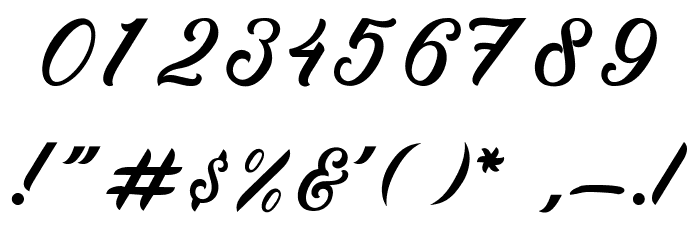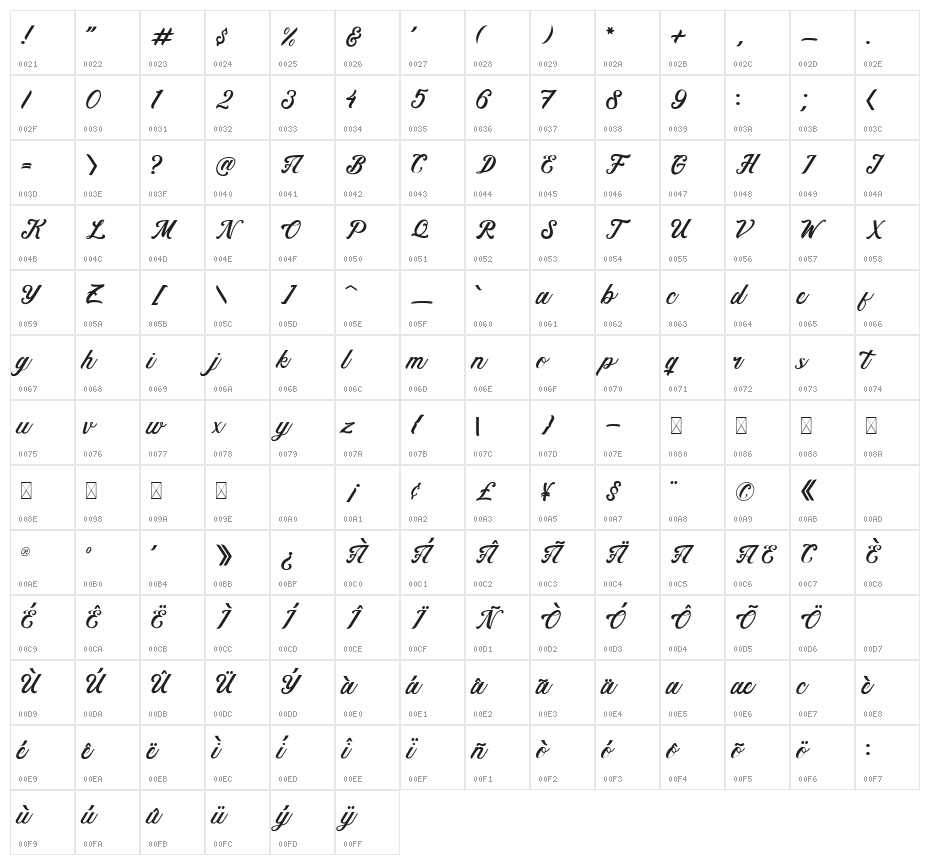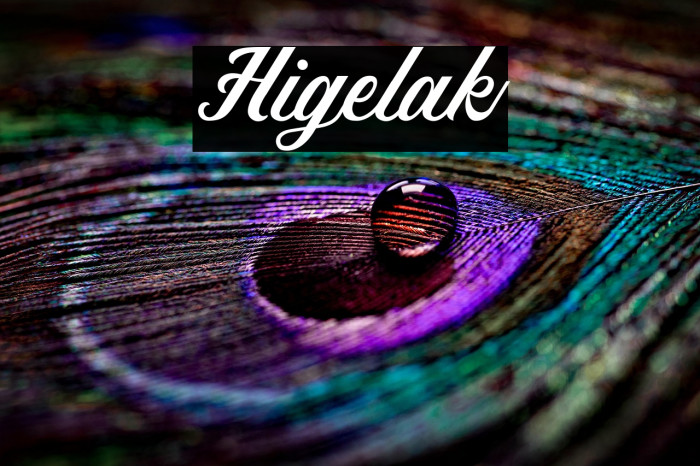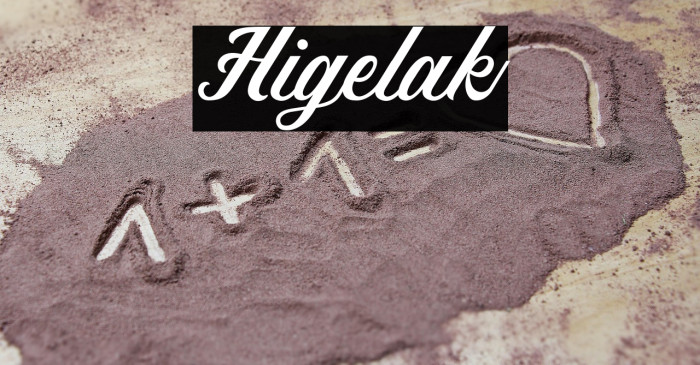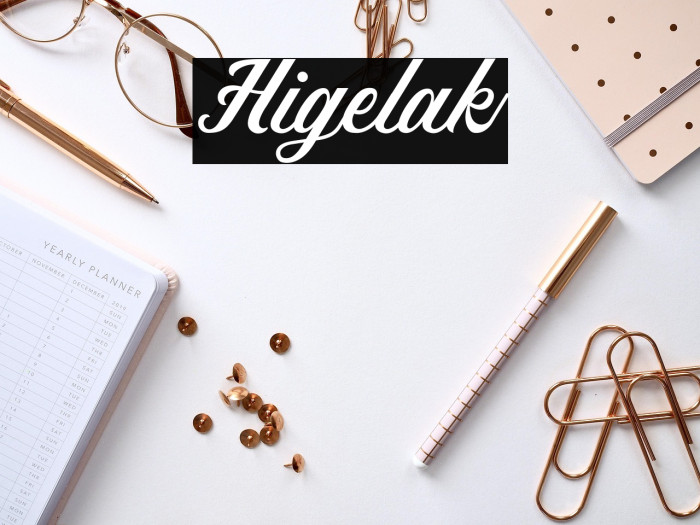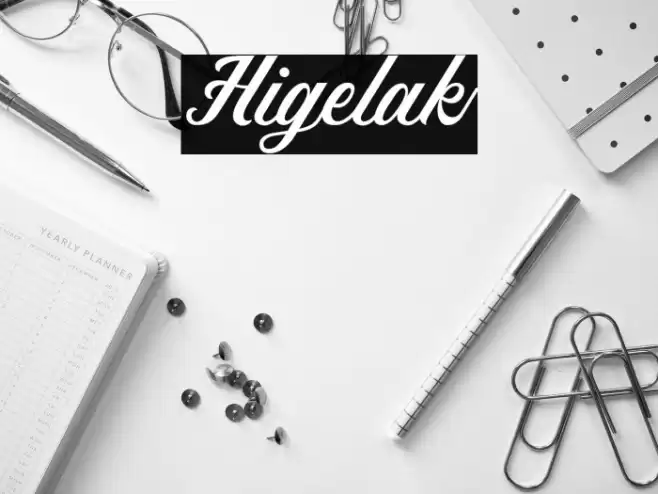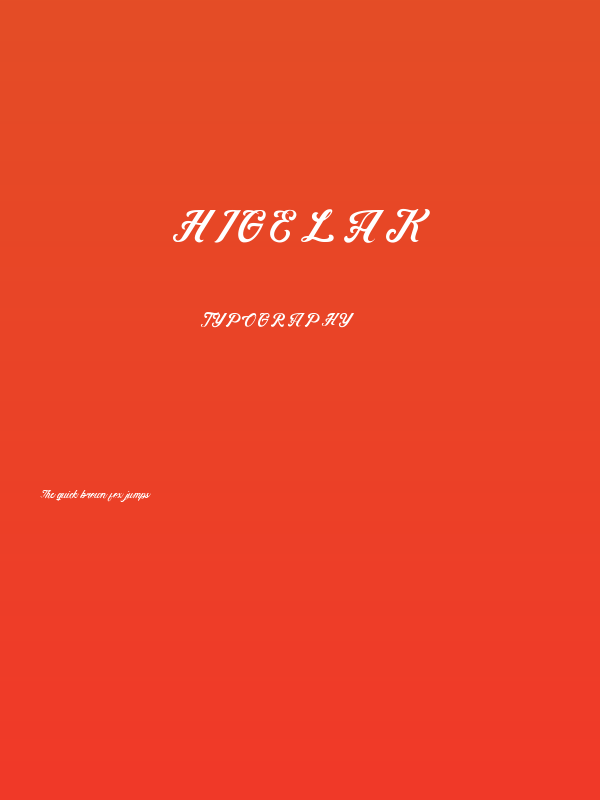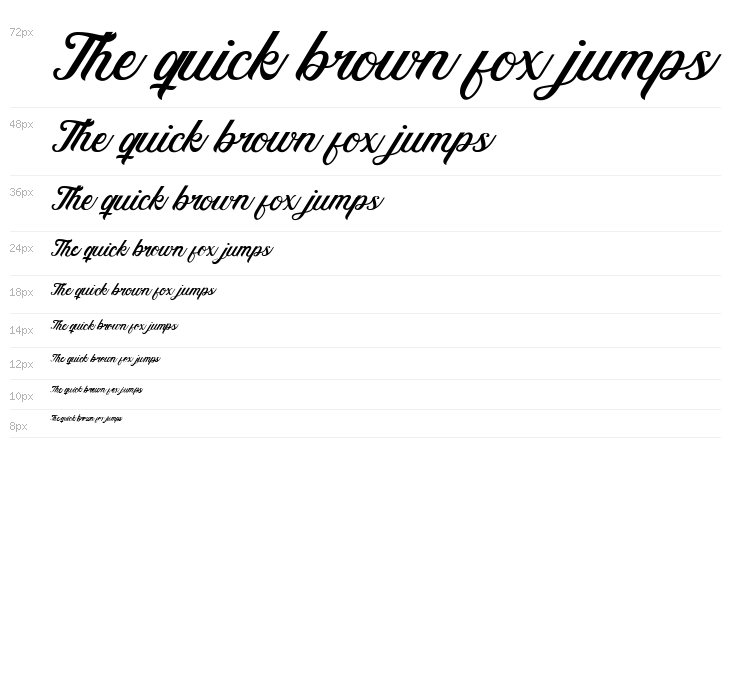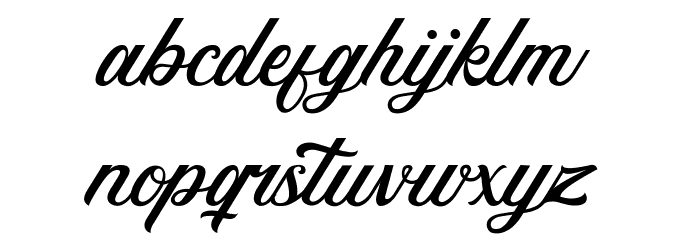
Higelak Font
Higelak Description
This elegant script font features a flowing, cursive style with smooth, rounded edges and a consistent stroke width. The characters are connected, creating a seamless and fluid appearance that is both sophisticated and inviting. The uppercase letters are ornate, with decorative flourishes that add a touch of elegance, while the lowercase letters maintain a more subdued and graceful look. The numerals and special characters are designed to complement the alphabet, maintaining the overall aesthetic. This font exudes a classic charm, making it ideal for formal invitations, branding, and other projects that require a touch of refinement.